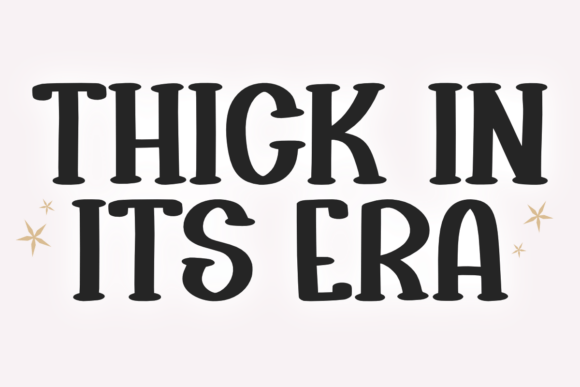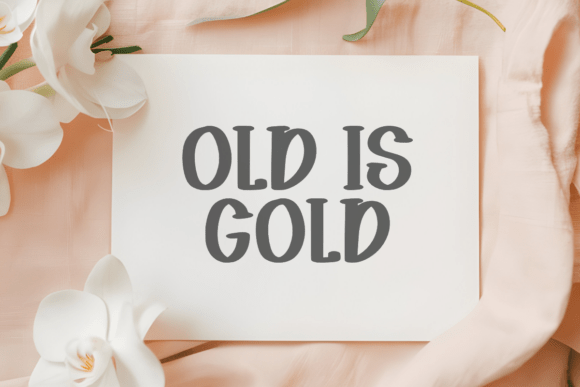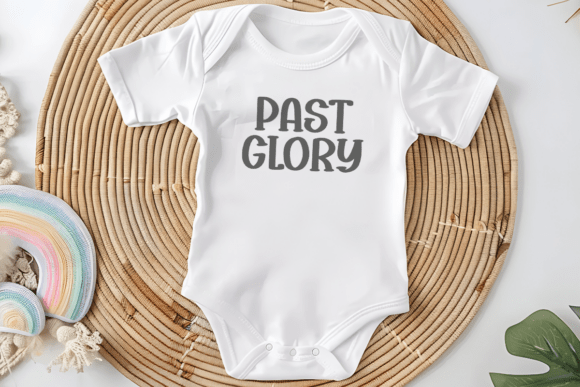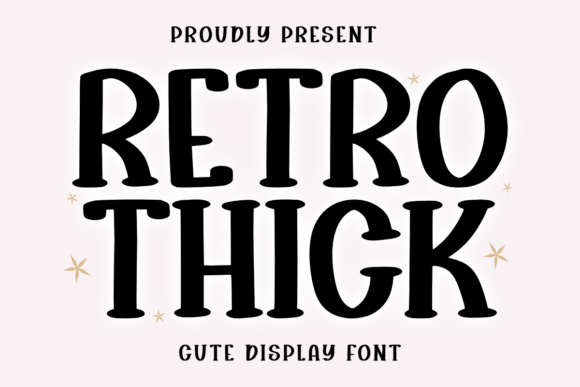
Introduction to Retro Thick Font
Retro Thick is a cute and playful slab serif font, perfect for planners, stickers, cards, quotes, and craft projects.
Ideal for creative moms who love DIY, journaling, and Cricut crafts .
Key Features of Retro Thick Font
Why Choose Retro Thick Font?
Retro Thick Font offers exceptional quality and versatility, making it a valuable addition to your design toolkit. Whether you’re creating for personal projects or commercial use, Retro Thick Font delivers professional results.